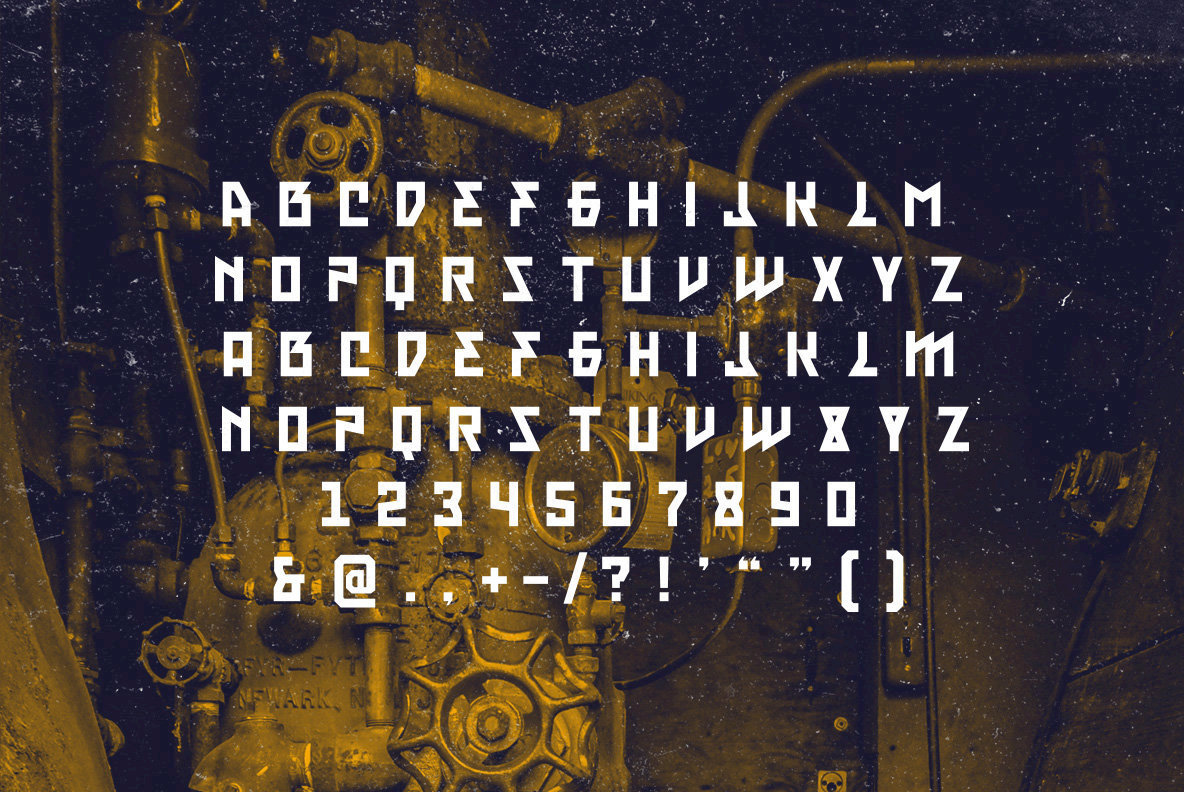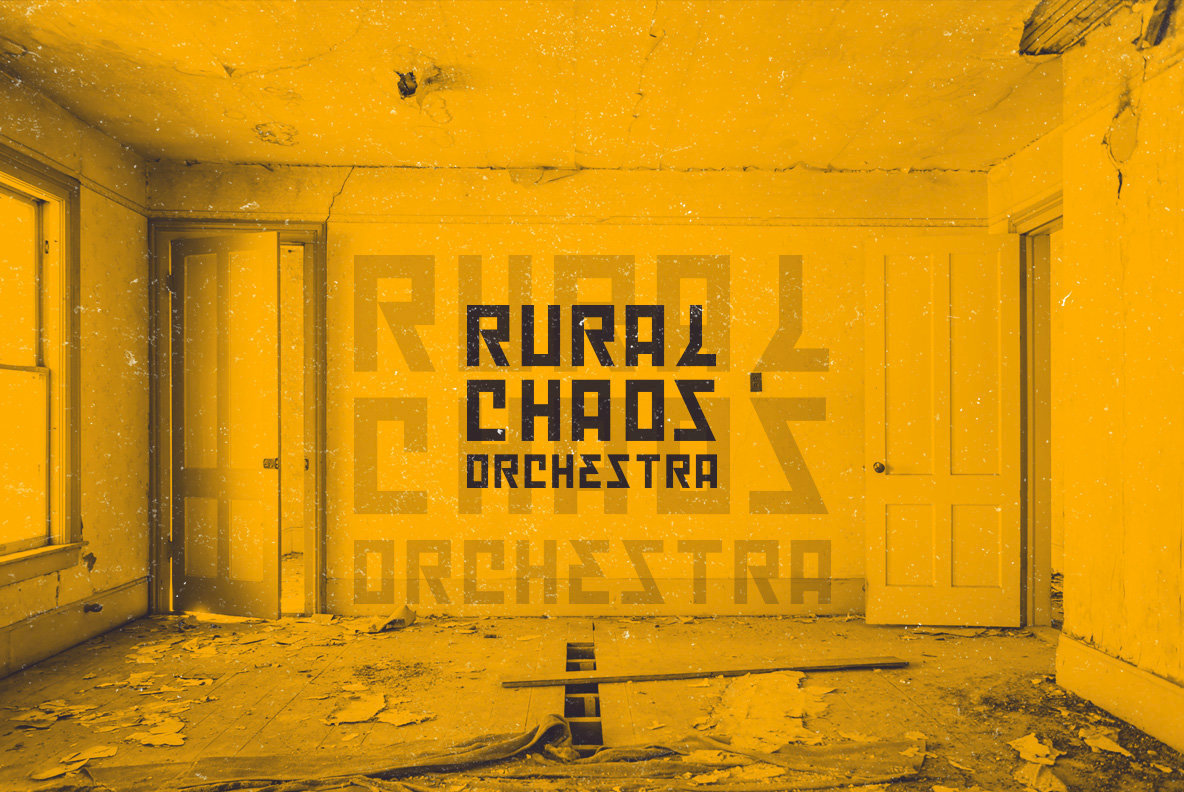
KS Foo Font
KS Foo Regular
KS Foo emerges as a distinctive display typeface, offering boundless opportunities for creative expression. Its sharp and striking form brings a bold sub-cultural edge to any project. From gig posters to skateboard designs and clothing industries, KS Foo serves as a versatile tool for modern creative needs.KS Foo: Sub-Culture Inspired Display Typeface